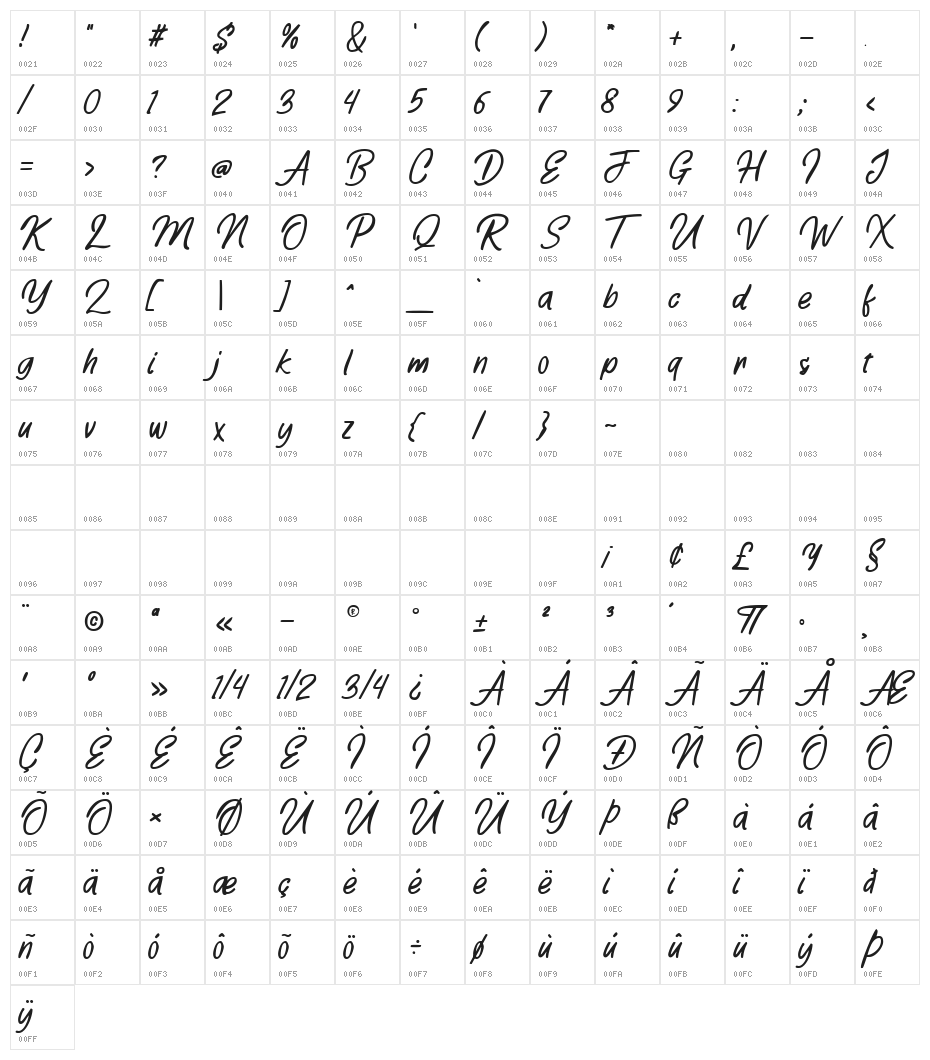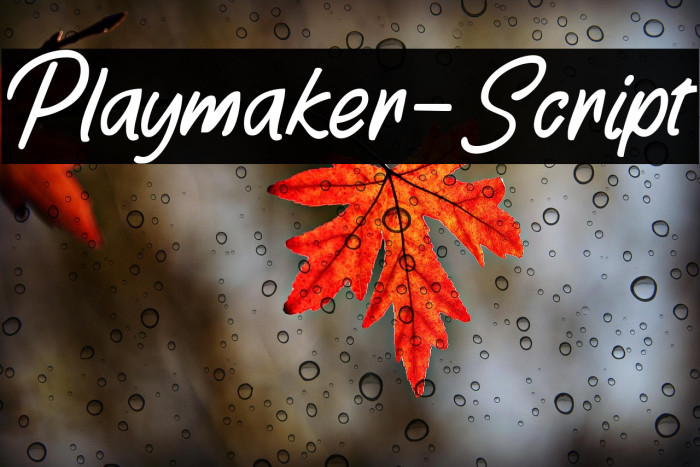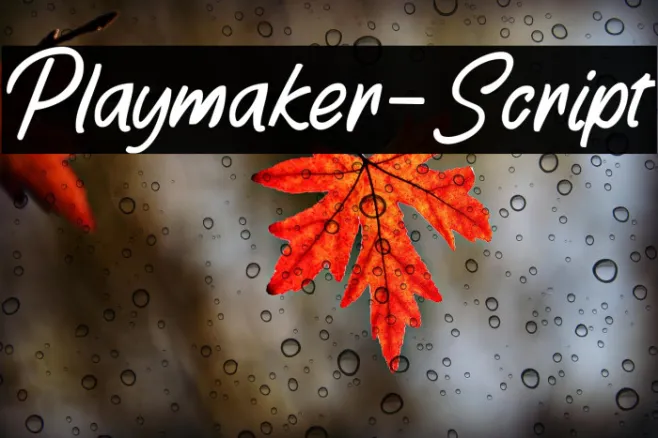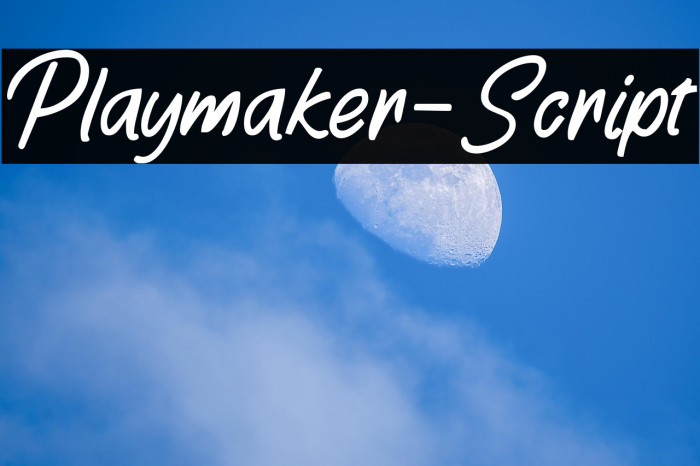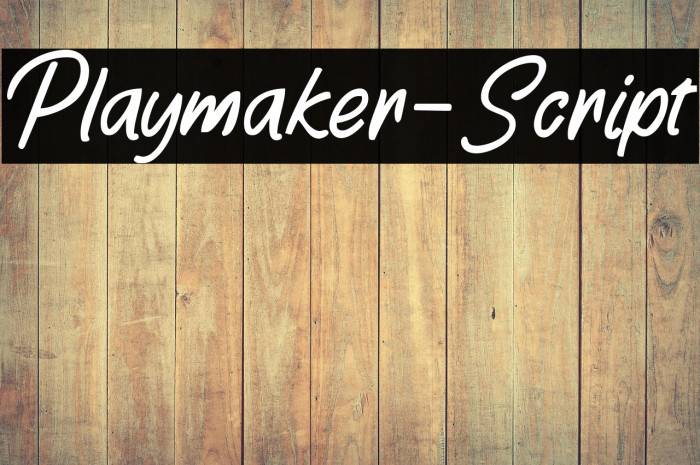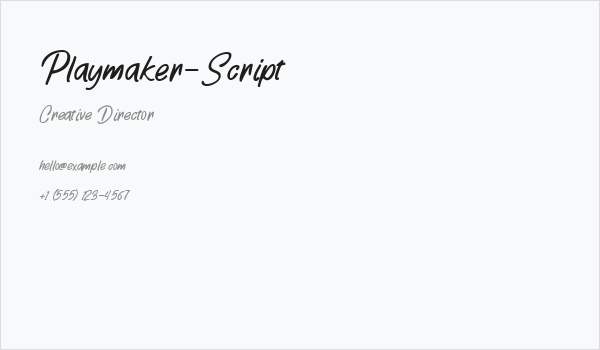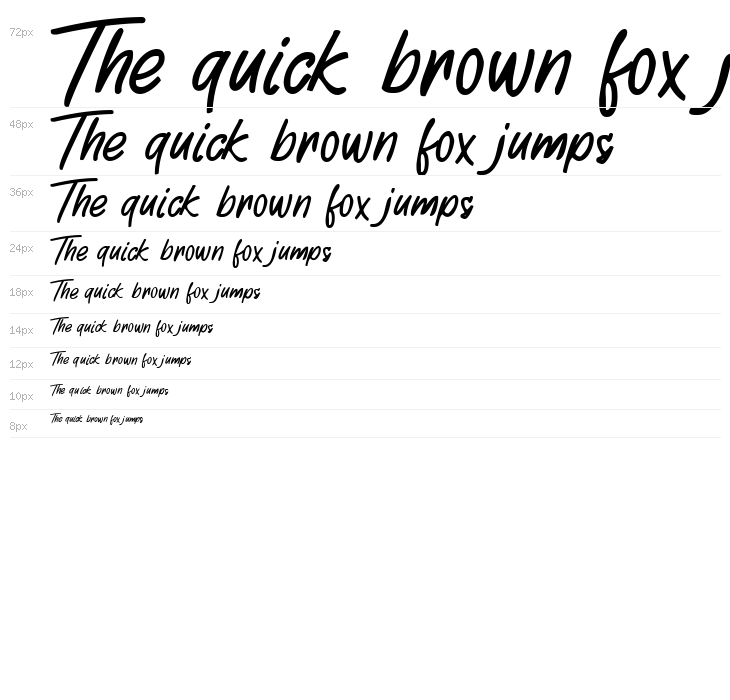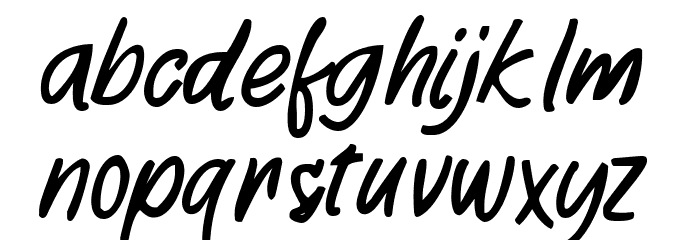
Playmaker-Script Font
Playmaker-Script Description
This font features a dynamic and fluid script style, characterized by its elegant and flowing letterforms. The uppercase letters exhibit a graceful, cursive quality with smooth curves and consistent stroke widths. The lowercase letters maintain a similar fluidity, with some characters extending slightly below the baseline, adding to the font's overall charm. The numerals are well-integrated into the script style, maintaining readability while complementing the alphabetic characters. Special characters are thoughtfully designed to match the script's aesthetic, ensuring a cohesive look across all text. This font's lively and expressive nature makes it suitable for projects that require a personal touch or a sense of elegance.
Overall StyleElegant